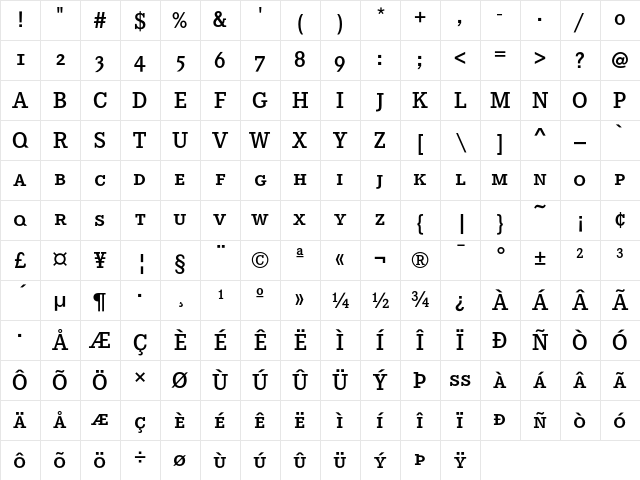
Complete CorporateESC Demi glyph index. Displaying only characters natively supported by CorporateESC Demi font.
CorporateESC is a composed and adaptable typeface that performs quietly and consistently across a wide range of design contexts.